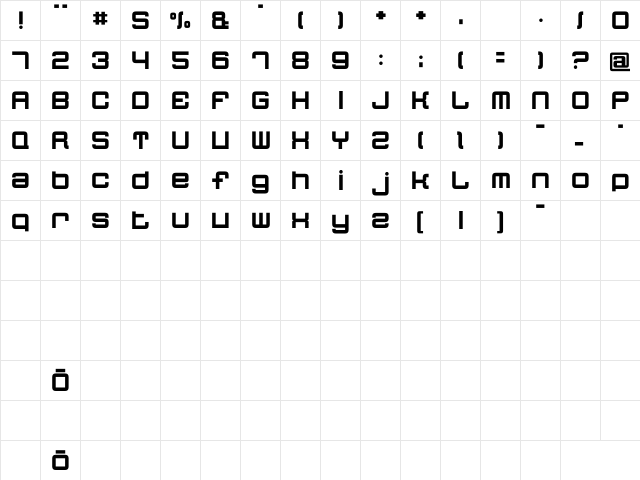
Quatron Regular
Design Context for Quatron Typeface
Quatron takes a measured approach to typography — its balanced proportions and neutral character make it a reliable workhorse for both digital and print work.